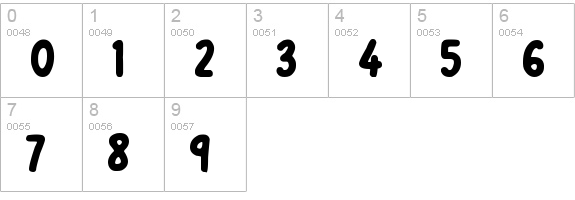
Dreamwalks Font Details
Dreamwalks is a donationware font in the General > Bold category, designed by Darrell Flood. It has been downloaded 539 times and is available for Windows, Mac and Linux.
Introducing Dreamwalks font, a whimsical and captivating typeface that is sure to bring a touch of fantasy to your design projects. With its elegant curves and unique letterforms, Dreamwalks exudes a dreamy and magical vibe that will enchant your audience.
This free font is perfect for adding a playful and imaginative element to your designs, whether you are working on branding, invitations, posters, or any other creative project. Its versatility allows it to be used in a variety of contexts, making it a must-have in your font collection.